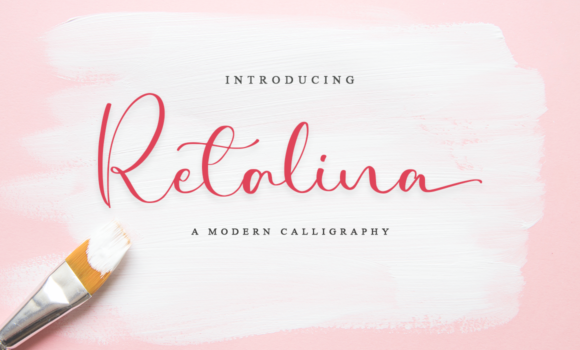
retalina
Retalina Font – Free Download Introduction to Retalina Font Retalina is a beautiful light handwritten font with a unique feel and a stunning impact. 📸 Preview Gallery 6 images 📌 Product Name Retalina Font 👤 Author NissaStudio 📂 Category Explore